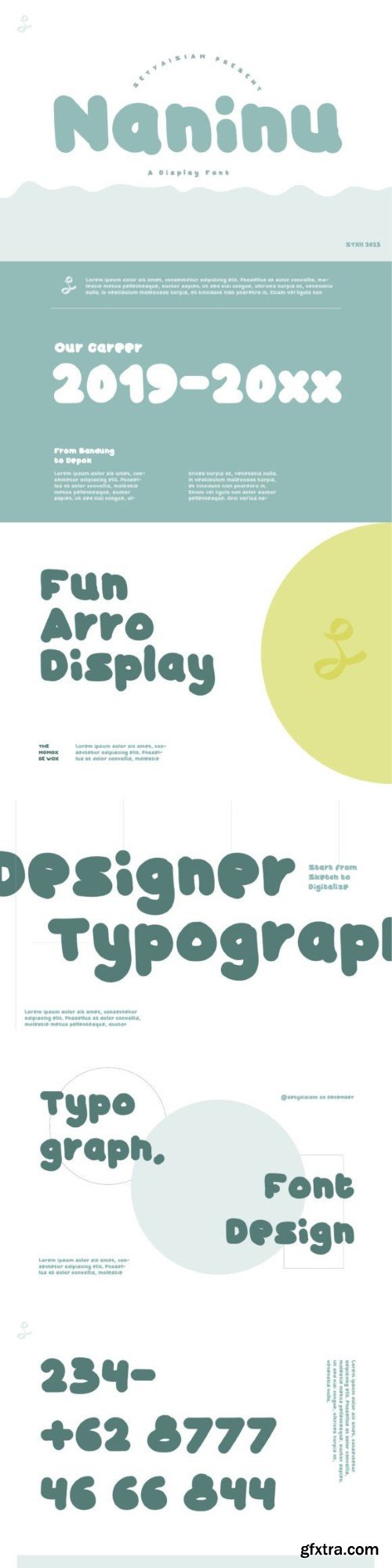
南恩奴字体
Naninu is a fun and quirky display font. Whether you use it for cartoon-related designs, children's games, or just any creation that requires a lovely touch, this font will be an amazing choice.